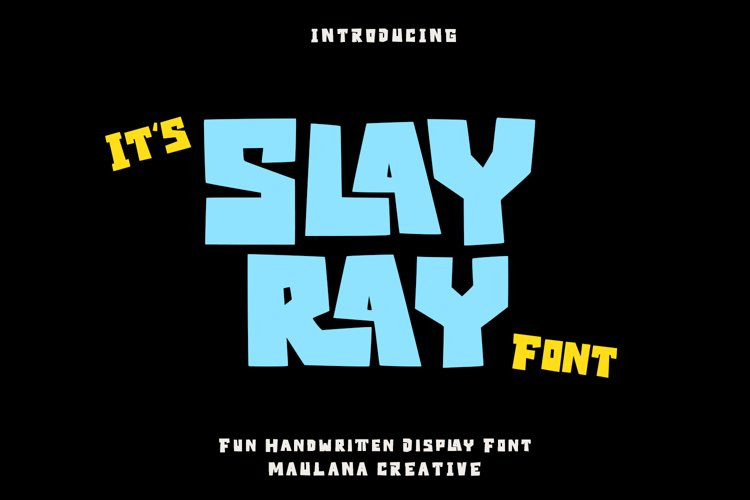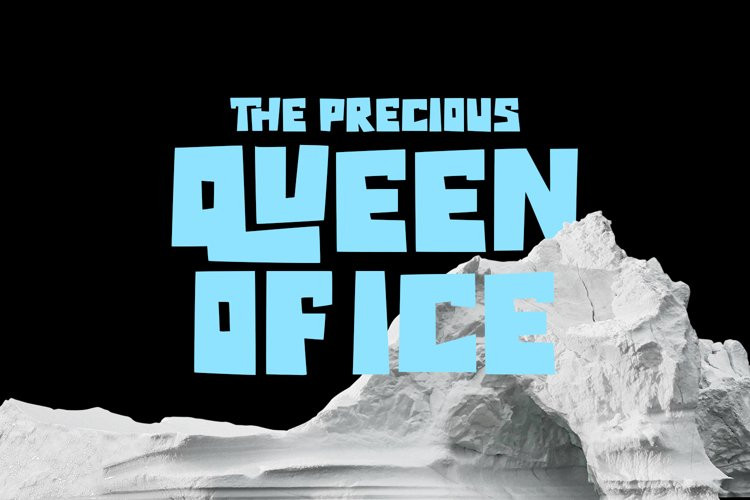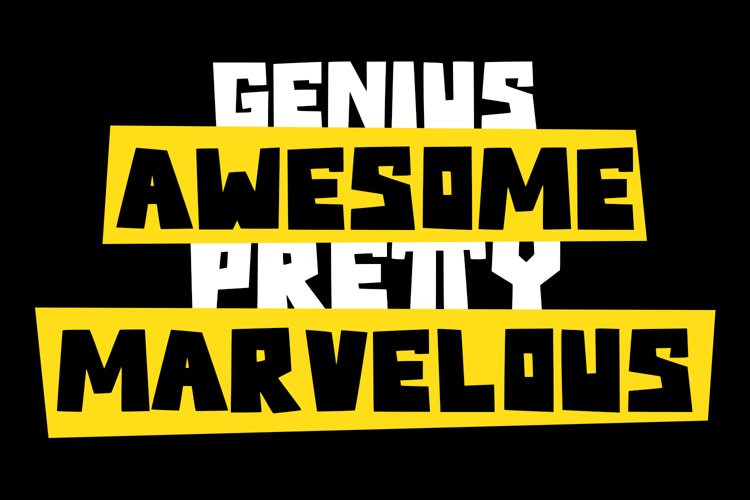
Slayray Font
Slayray FontSlayray is a decorative bouncy handwritten font. With block bold stroke, fun character. To give you an extra creative work. Slayray font support multilingual more than 100+ language. This font is good for logo design, Social media, Movie Titles, Books Titles, a short text even a long text letter and good for your secondary text font with sans or serif. Make a stunning work with Slayray font.